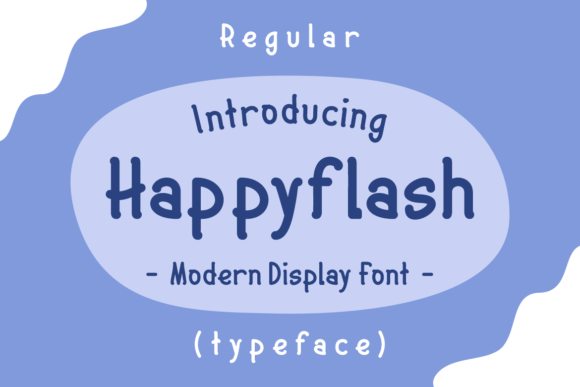
**Introducing Happyflash: The Font of Unforgettable Impressions**
Embark on a typographic adventure with Happyflash, the display font that ignites joy and captivates audiences. Its playful and vibrant characters dance across screens, leaving an imprint of pure delight.
Crafted by the visionary maikofarazhatta, Happyflash is not merely a font; it's a catalyst for remarkable designs. With its playful curves and energetic strokes, this font commands attention and sparks emotions like no other.
Whether you're weaving digital masterpieces or adorning print projects, Happyflash has the power to transform your creations into unforgettable experiences. Its versatility knows no bounds, adapting effortlessly to a myriad of aesthetics and themes.
**Unlock the Gateway to Limitless Creativity**
With Happyflash, you'll discover a font that:
* Infuses your designs with an irresistible charm
* Evokes happiness and positivity with every letterform
* Breaks through the clutter, making your messages stand out
* Empowers you to create designs that resonate and inspire
* Opens doors to a world of limitless creative possibilities
**Ignite Your Imagination with Happyflash**
Elevate your designs to dizzying heights with Happyflash. This extraordinary font will:
* Inject vibrancy into your digital and print projects
* Attract attention, captivate audiences, and leave lasting impressions
* Fuel your creativity, inspiring you to craft designs that shine
* Unleash your inner artist, empowering you to express yourself with unparalleled freedom
* Become an indispensable tool in your typographic arsenal, unlocking endless creative possibilities